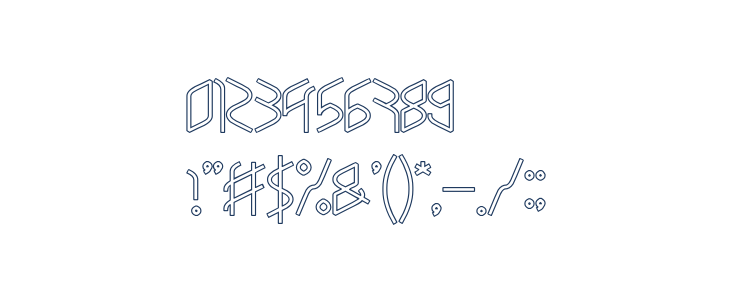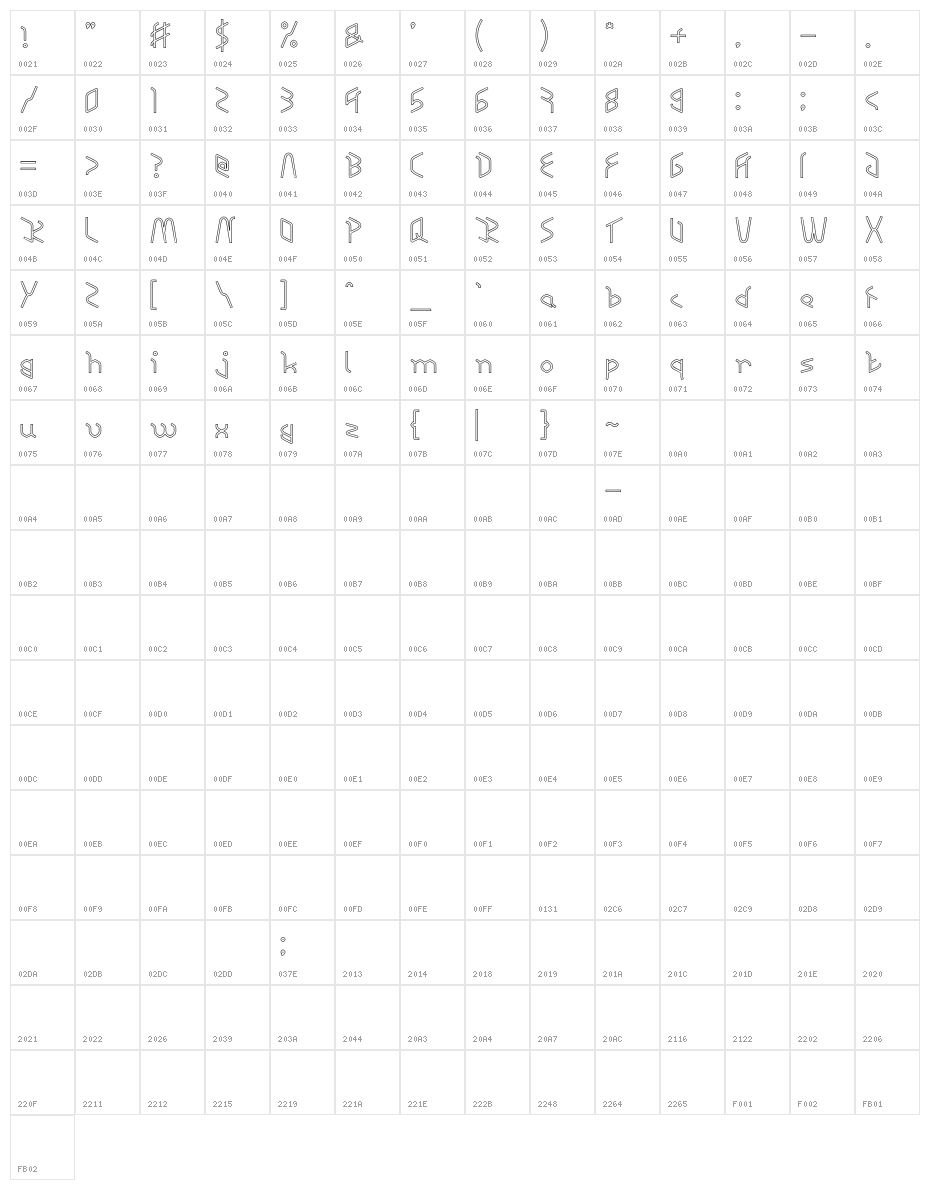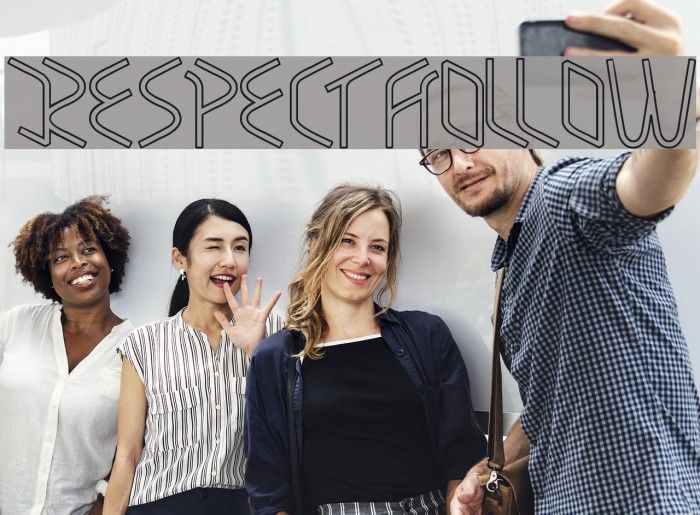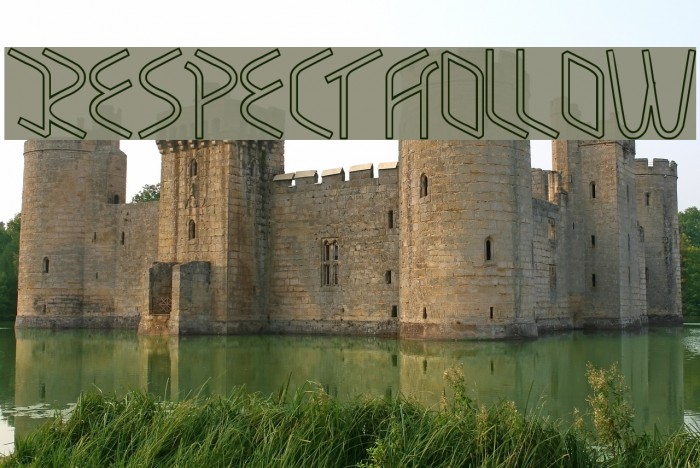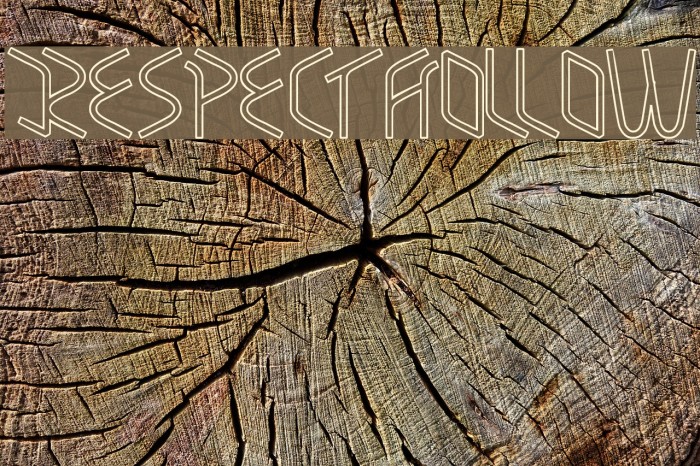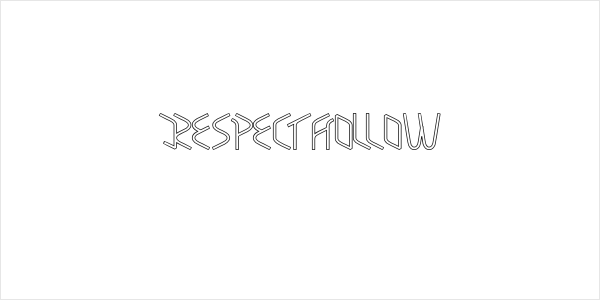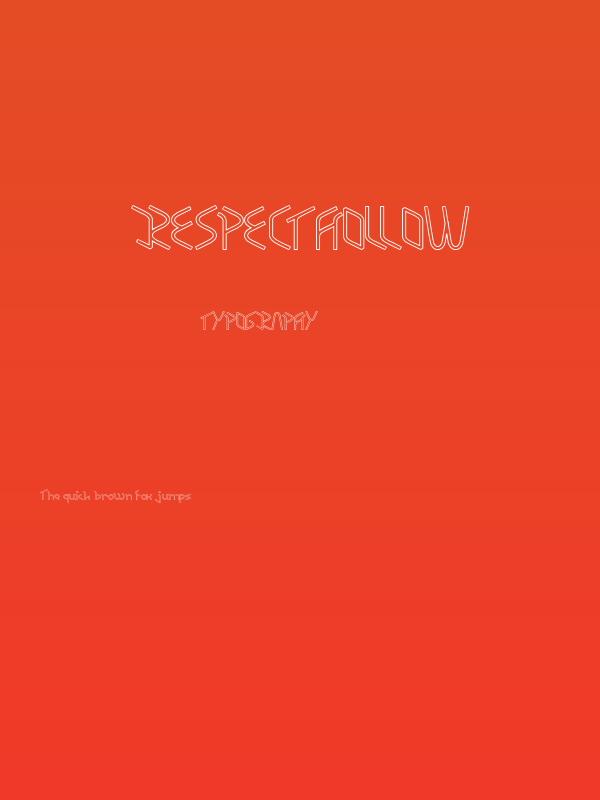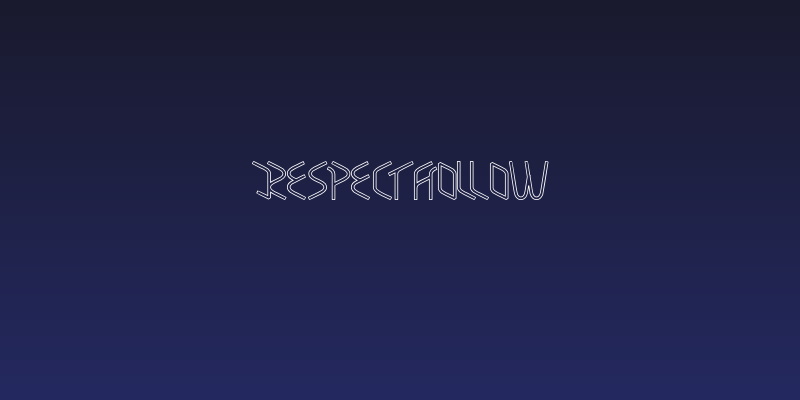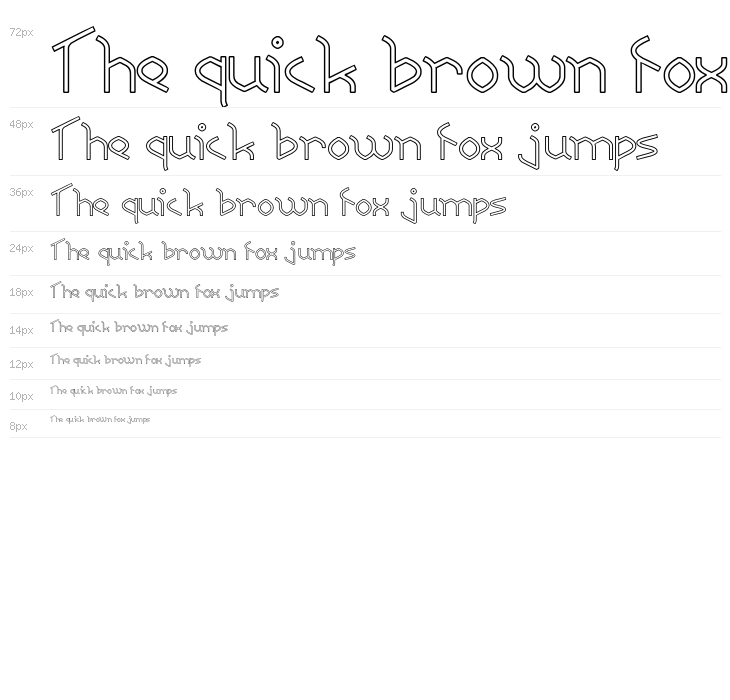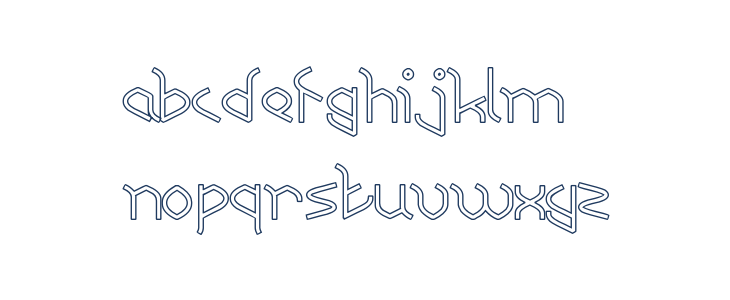
RESPECTHOLLOW Font
RESPECTHOLLOW Description
This font features a unique hollow design with a futuristic and geometric aesthetic. Each character is outlined, creating a striking visual effect that emphasizes the negative space within the letters. The uppercase and lowercase letters maintain a consistent style, with angular lines and sharp edges that give a sense of modernity and innovation. The numerals and special characters follow the same design principles, ensuring a cohesive look across all glyphs. This font's distinct appearance makes it ideal for projects that require a bold and eye-catching typeface.
| Proposed Projects | Ideal for sci-fi themed designs, modern branding, tech-related projects, and innovative product packaging. |